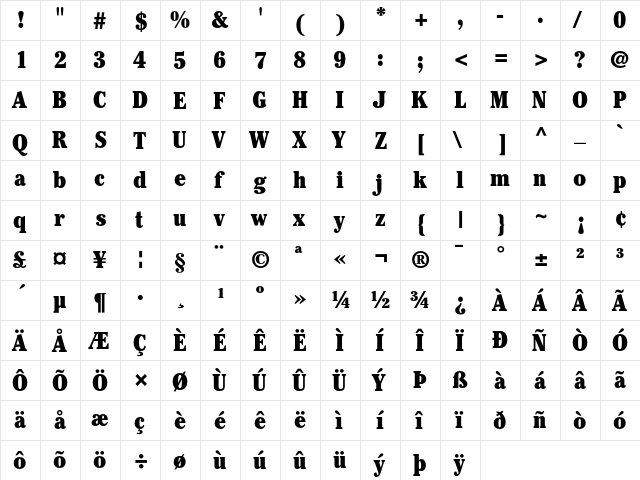
ITC Cheltenham Ultra Condensed
Design Context for ITC Cheltenham Typeface
ITC Cheltenham is a composed and adaptable typeface that performs quietly and consistently across a wide range of design contexts. Its narrow stance lets it pack a punch even in space-constrained designs.